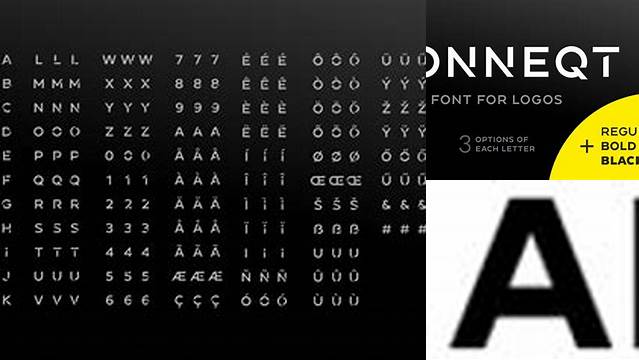
What is the Conneqt Regular Font Family?
The Conneqt Regular font family is a modern and versatile typeface known for its clean lines and balanced design. It's a sans-serif font, which means it doesn't have the small decorative strokes (serifs) that you see on fonts like Times New Roman. This gives it a contemporary and minimalist look, making it suitable for a wide range of applications. The Conneqt Regular font family includes various weights and styles, such as regular, bold, italic, and more, offering flexibility for different design needs. Its legibility and clear structure make it an excellent choice for both body text and headlines, ensuring your message is conveyed effectively. The carefully crafted letterforms of Conneqt Regular provide a harmonious reading experience, reducing eye strain and enhancing the overall visual appeal of your content. This font family is designed to maintain clarity and readability across different sizes and mediums, whether it's printed materials or digital displays. Its balanced proportions and consistent letter spacing contribute to a professional and polished look, making it a reliable choice for designers aiming for a clean and modern aesthetic. Furthermore, the Conneqt Regular font family often supports multiple languages and character sets, expanding its usability for international projects. The attention to detail in its design reflects a commitment to quality and versatility, making it a valuable asset in any designer's toolkit. The font’s ability to seamlessly integrate into various design styles, from corporate communications to creative branding, underscores its widespread appeal and practicality. For those seeking a font that embodies both simplicity and sophistication, the Conneqt Regular font family stands out as a top contender, providing a solid foundation for a wide array of design endeavors.
The key features of the Conneqt Regular font family lie in its modern design and versatility. One of the standout characteristics is its clean, sans-serif style, which gives it a contemporary edge. This makes it incredibly versatile, fitting seamlessly into various design contexts, from corporate websites to creative branding projects. The balanced letterforms ensure excellent readability, making it suitable for both body text and headlines. The font family typically includes multiple weights and styles, such as regular, bold, italic, and more, offering designers the flexibility to create visual hierarchy and emphasize key information. The uniform stroke width and consistent character spacing contribute to its polished appearance, enhancing the overall aesthetic appeal of any design. Moreover, Conneqt Regular is often designed with multilingual support, accommodating a wide range of languages and character sets, making it a practical choice for international projects. The absence of serifs gives it a modern and minimalist look, which is particularly well-suited for digital applications where clarity and legibility are paramount. The font's smooth curves and precise lines provide a visual rhythm that is both pleasing to the eye and easy to read, even at smaller sizes. This makes it a reliable option for everything from printed documents to user interfaces, ensuring a consistent and professional look across all mediums. The Conneqt Regular font family’s adaptability also extends to its ability to pair well with other fonts, allowing designers to create diverse and engaging typographic compositions. Its neutral yet distinct personality makes it a valuable asset in any designer's toolkit, offering a reliable and stylish solution for a wide range of projects. Whether used for branding, marketing materials, or web design, the Conneqt Regular font family delivers a clean and contemporary look that enhances the overall visual communication.
Where Can You Use Conneqt Regular?
You can use Conneqt Regular in a myriad of applications due to its versatile nature. It's an excellent choice for website design, where its clean lines and readability ensure a seamless user experience. For branding projects, Conneqt Regular can provide a modern and professional look, making it suitable for logos, business cards, and marketing materials. In print design, such as brochures and magazines, its legibility makes it ideal for both headlines and body text. Additionally, Conneqt Regular works well in digital documents like presentations and reports, ensuring clarity and consistency. Its contemporary style also makes it a great fit for user interface (UI) design, where clear typography is crucial for usability. The font's adaptability extends to editorial design, packaging, and even mobile apps, making it a truly versatile choice for any project. In the realm of marketing, Conneqt Regular can help create compelling advertisements and promotional materials, ensuring the message is conveyed effectively and professionally. Its neutral yet stylish appearance allows it to blend seamlessly with various design aesthetics, from minimalist to more elaborate layouts. This font is also a strong contender for corporate communications, providing a cohesive and polished look across all materials, from internal memos to external reports. For creative projects, Conneqt Regular can serve as a reliable foundation, allowing designers to add flair and personality through other design elements. Its versatility makes it a valuable asset for both seasoned professionals and those new to design, offering a dependable solution for a wide range of typographic needs. Whether you're designing a website, crafting a brand identity, or creating marketing collateral, Conneqt Regular is a font that delivers clarity, style, and adaptability.
Tips for Using Conneqt Regular Effectively
To use Conneqt Regular effectively, consider its strengths and limitations. This font shines in modern and minimalist designs, so it's a great choice for projects where you want a clean and contemporary look. When using Conneqt Regular, pay attention to letter spacing and line height to ensure optimal readability, especially in body text. Pair it with other fonts strategically to create visual interest and hierarchy. For example, you might use Conneqt Regular for headlines and a serif font for body text, or vice versa. Experiment with different weights and styles within the Conneqt Regular family to add emphasis and variation to your design. Use bold weights for important keywords or headings and regular weights for body text. In digital designs, ensure the font renders well across different browsers and devices. Test the font at various sizes to check for legibility issues. When using Conneqt Regular in print, choose appropriate paper and printing techniques to maximize its visual impact. The font's clean lines and balanced proportions make it suitable for a wide range of print materials, from business cards to posters. Avoid overusing the font; a consistent and restrained approach will help maintain a professional and polished look. Consider the overall tone and message of your design when deciding whether Conneqt Regular is the right choice. Its neutral yet stylish appearance makes it versatile, but it may not be suitable for designs that require a more traditional or decorative typeface. Additionally, be mindful of the context in which the font is used. For example, Conneqt Regular can be an excellent choice for corporate websites and marketing materials, but it may not be the best fit for a children's book or a vintage-themed project. By understanding the font's characteristics and using it thoughtfully, you can leverage its strengths to create visually appealing and effective designs. Whether you're working on a website, a brochure, or a logo, Conneqt Regular can be a valuable asset in your typographic toolkit.
Alternatives to Conneqt Regular Font Family
If Conneqt Regular doesn't quite fit your project's needs, there are several excellent alternative font families to consider. One popular choice is Helvetica, a classic sans-serif font known for its clean and neutral design. Helvetica is highly versatile and widely used in various applications, making it a reliable alternative. Another option is Arial, which is similar to Helvetica but with slight differences in letterforms. Arial is a standard font on many systems, making it easily accessible and compatible across different platforms. Open Sans is another strong contender, offering a modern and friendly appearance with excellent readability, especially on screens. Its open letterforms and balanced proportions make it a great choice for websites and digital interfaces. Roboto is a Google font that has gained popularity for its versatility and clean design. It comes in a variety of weights and styles, making it suitable for both headlines and body text. Lato is another excellent sans-serif font with a slightly rounded character, giving it a warm and approachable feel. Lato is highly legible and works well in both print and digital media. Montserrat is a geometric sans-serif font that offers a stylish and contemporary look. Its clean lines and strong presence make it a great choice for branding and headlines. Nunito Sans is a versatile font with rounded terminals, providing a friendly and modern aesthetic. It’s an excellent option for user interfaces and websites. Each of these alternatives offers unique characteristics and strengths, so it's worth exploring them to find the best fit for your project. When selecting an alternative, consider factors such as the overall tone of your design, the intended use of the font, and its legibility in different contexts. By having a range of font options at your disposal, you can ensure that your typographic choices enhance the visual appeal and effectiveness of your designs. Whether you’re looking for a classic, modern, or friendly sans-serif font, these alternatives to Conneqt Regular provide a solid foundation for your design endeavors.